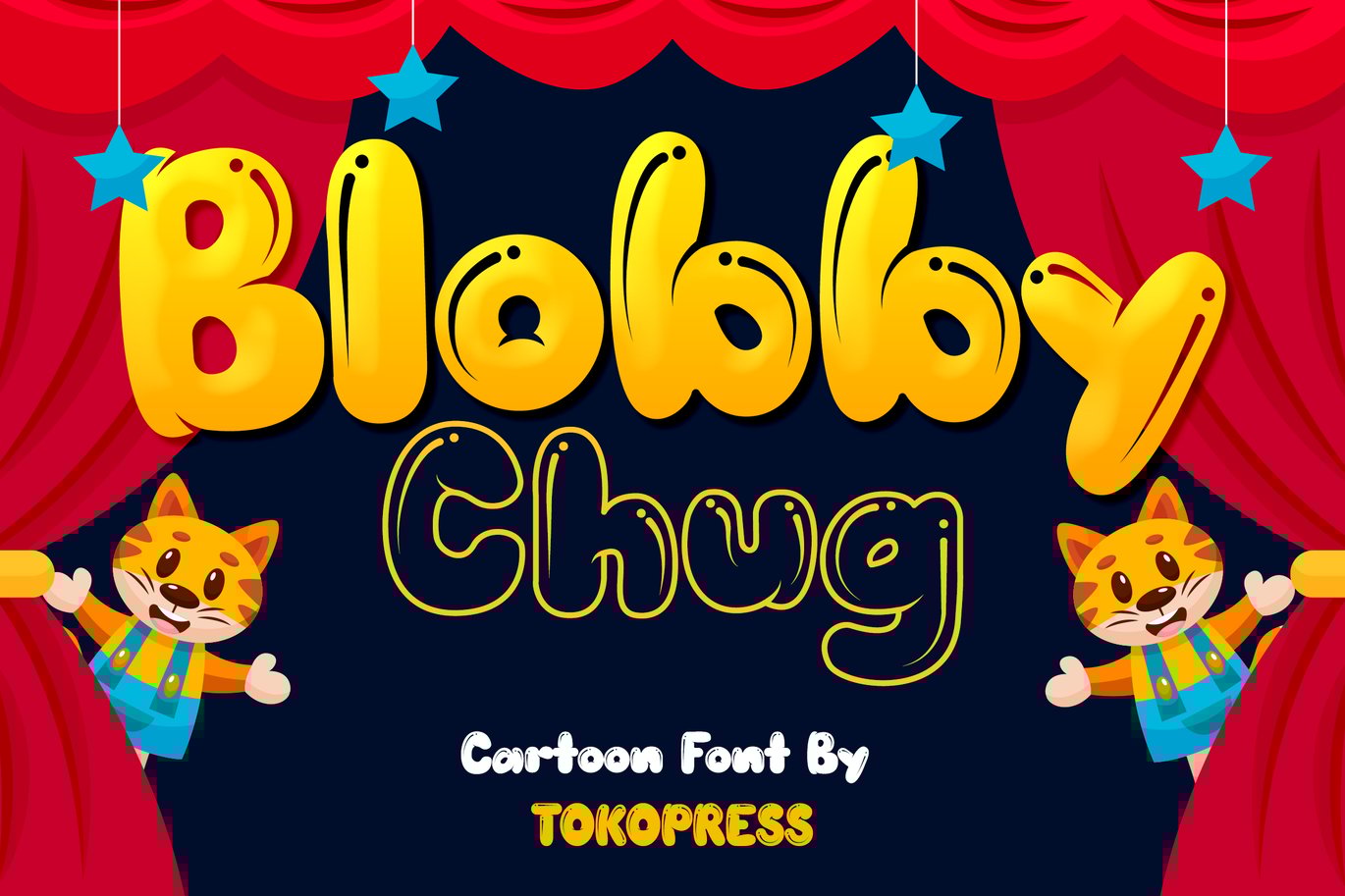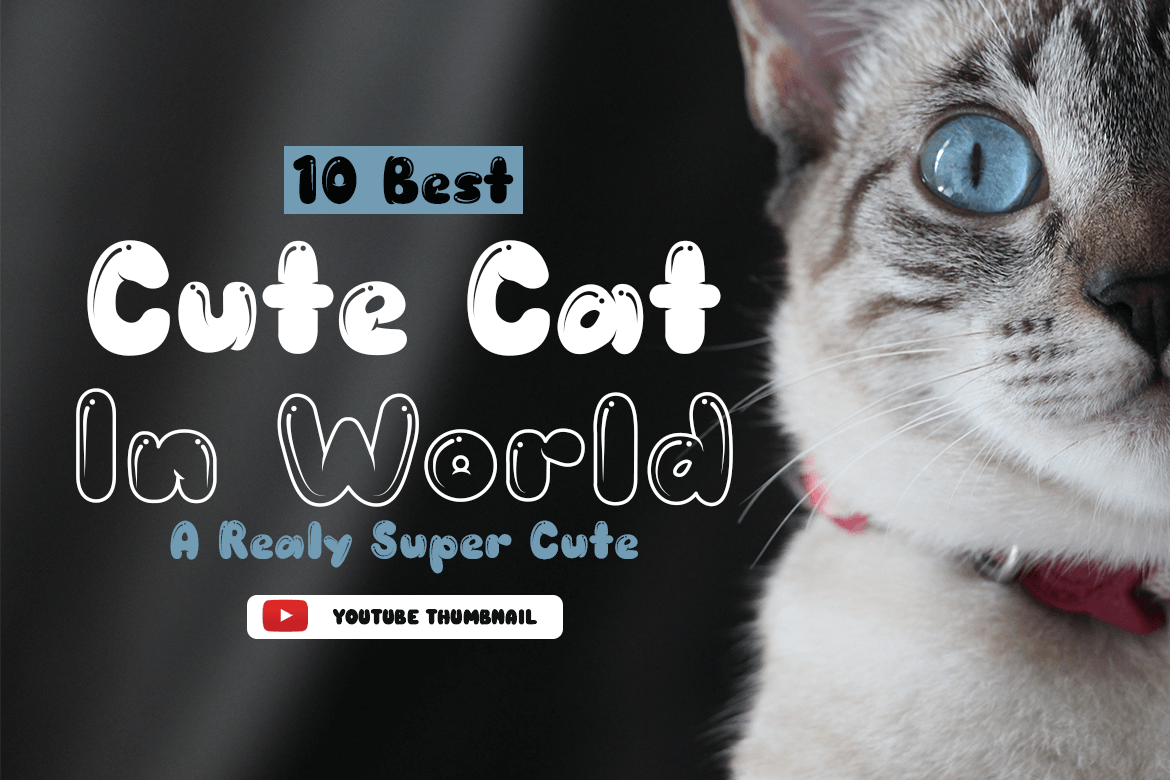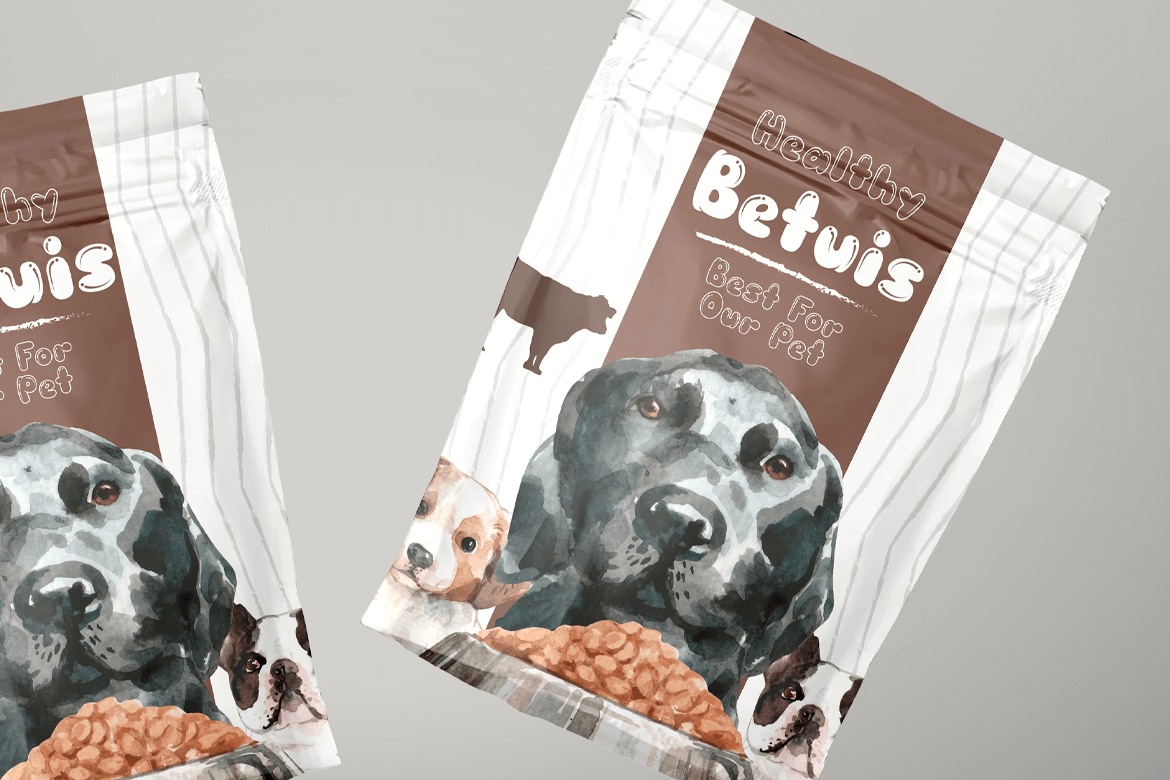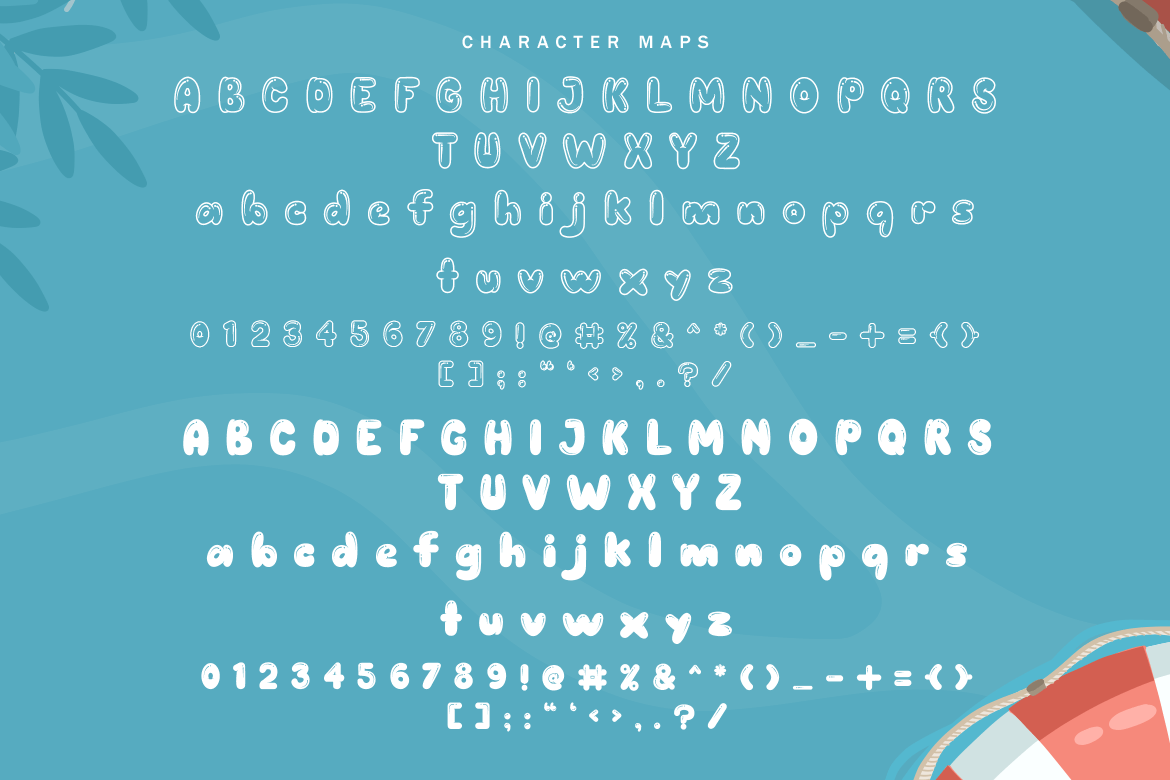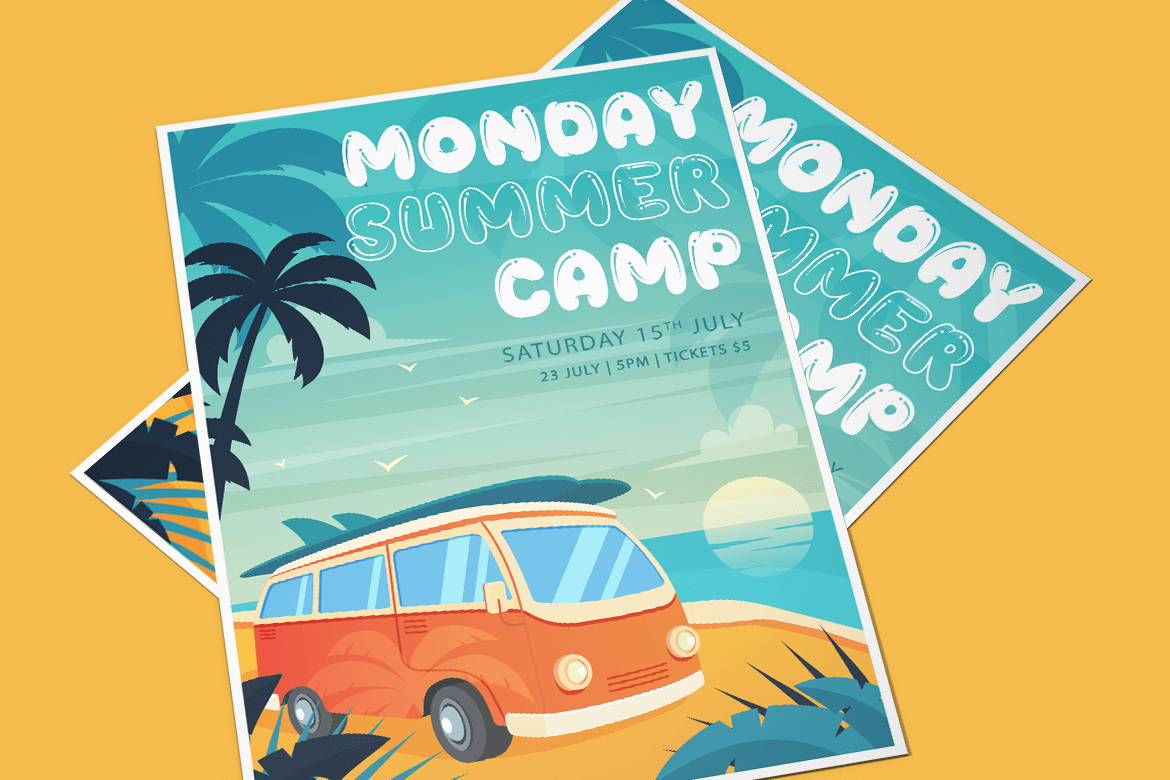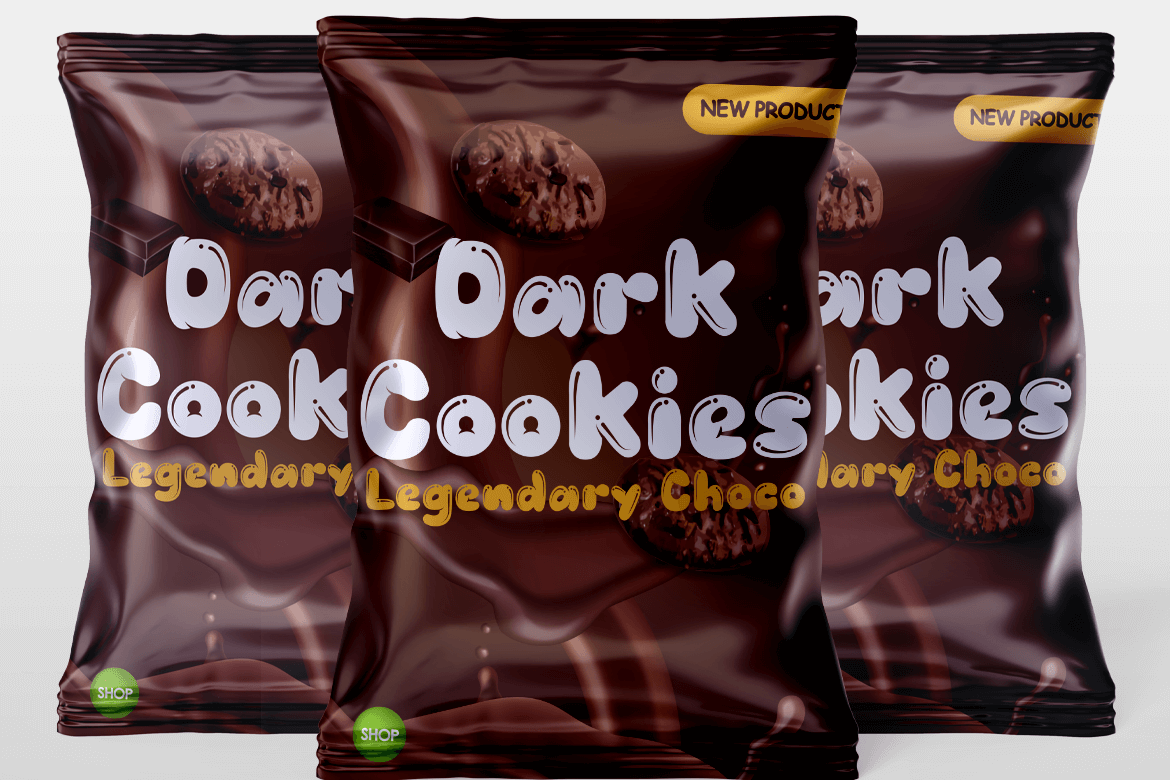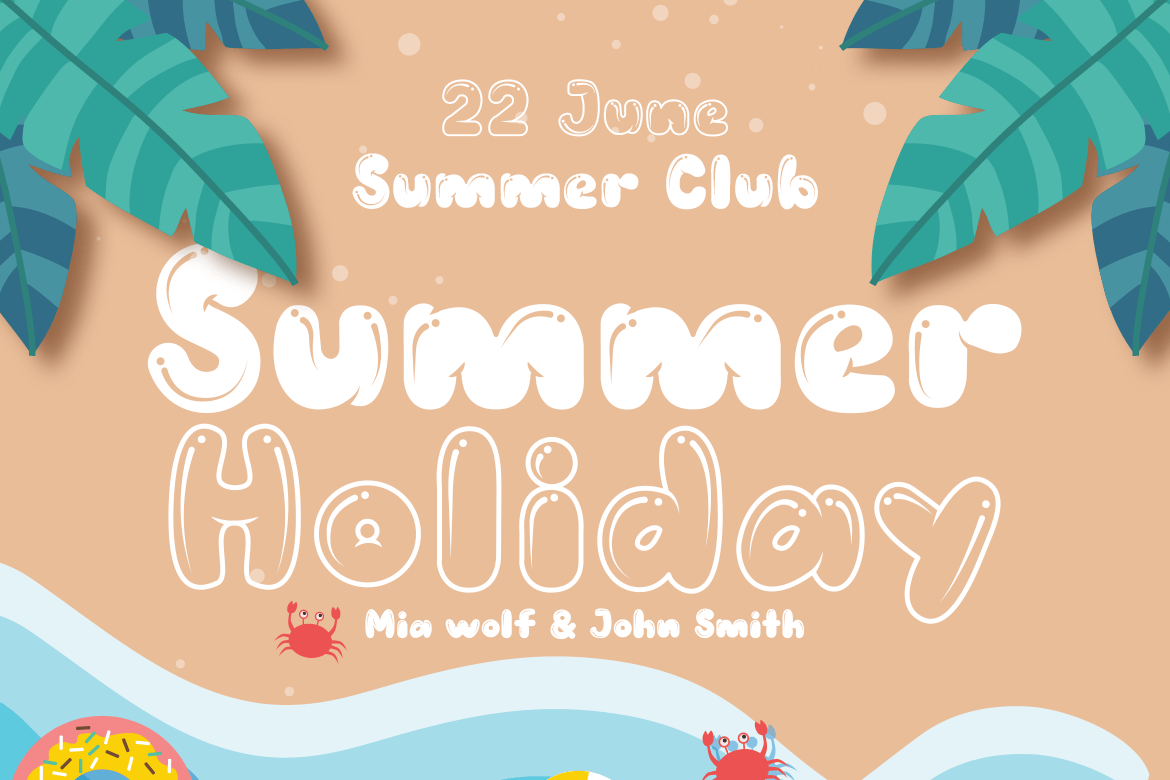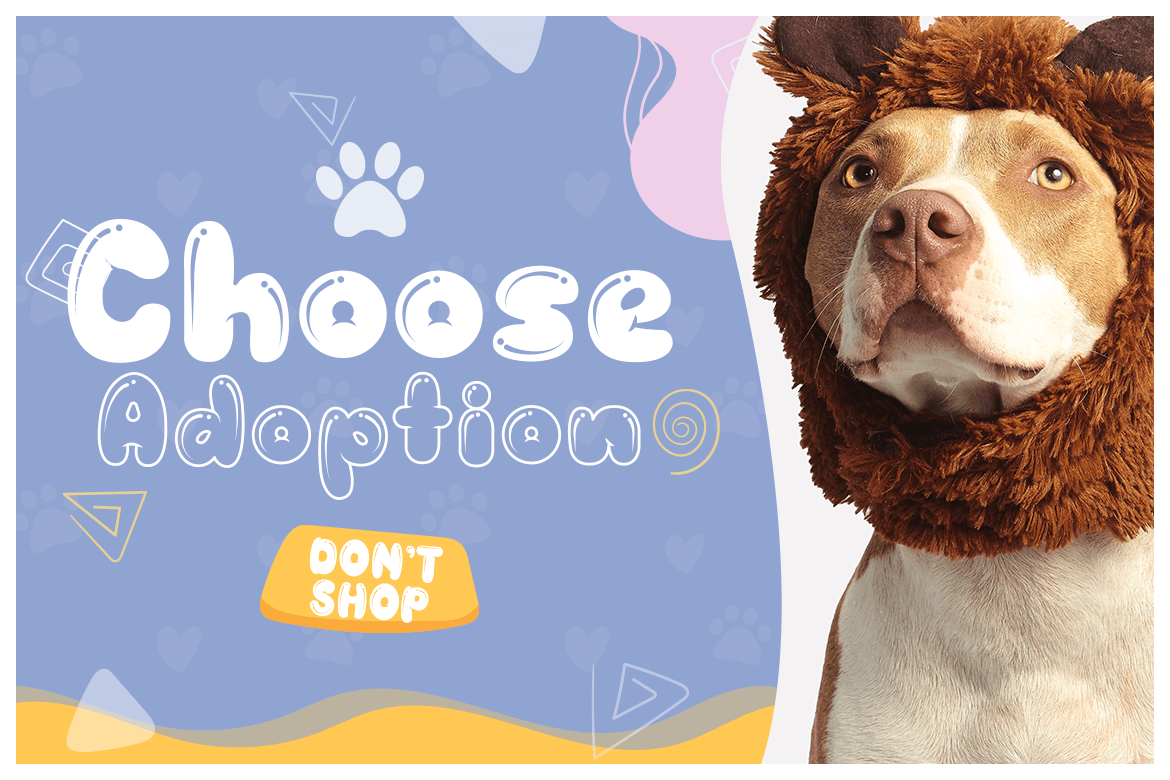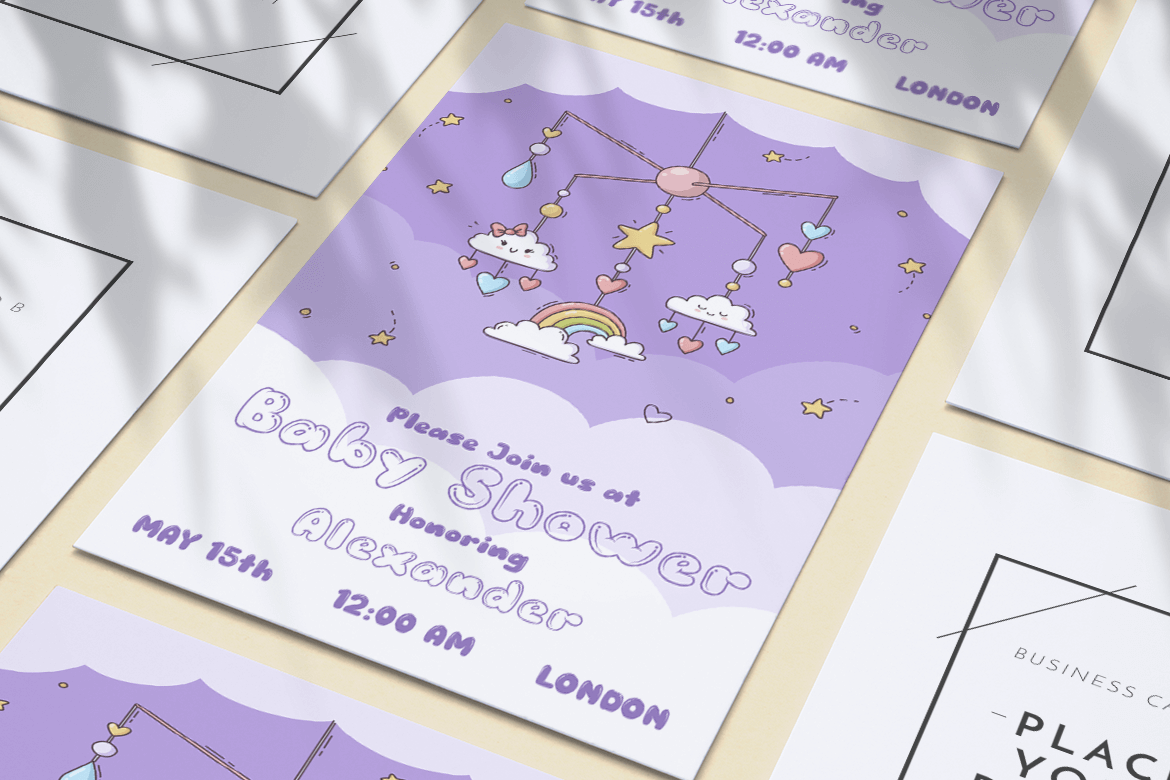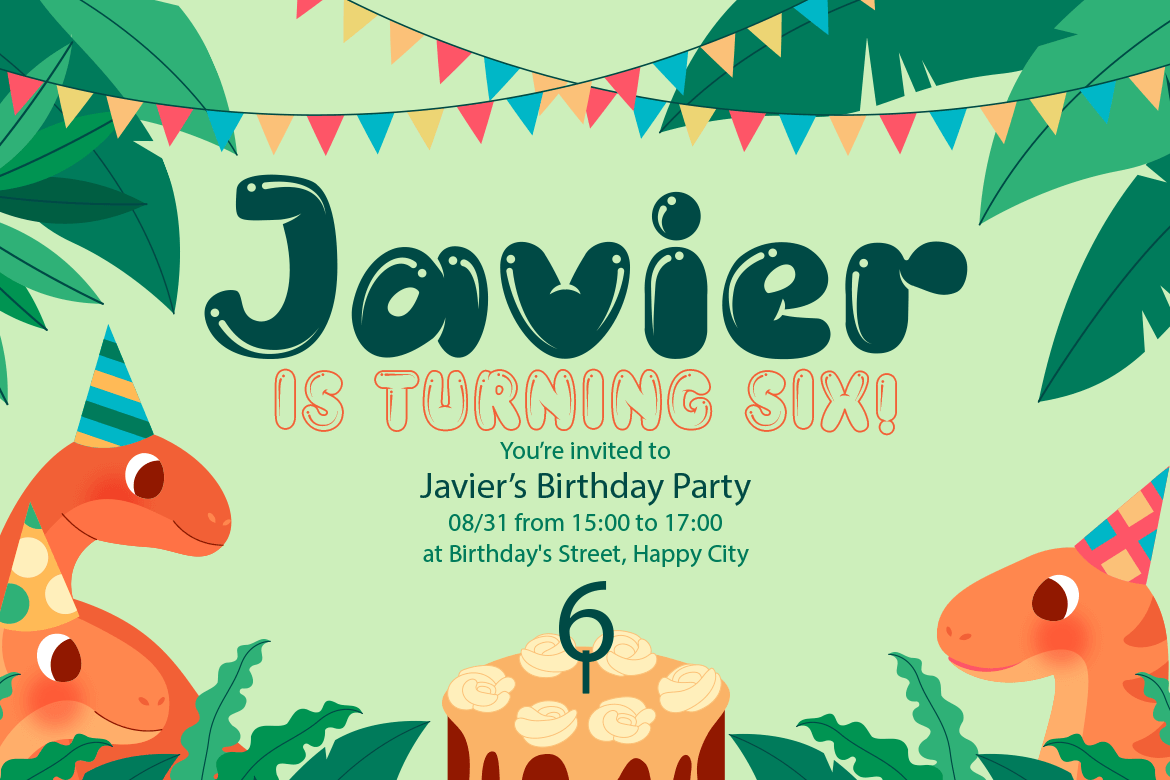
Blobby Chug – Kids blob font
The bold and balloon playful sans serif shape will bring a lot of joy in kids heart.
Suit perfectly for kids market, online games, stationary, t-shirt and school supplies font, poster, movie title, youtube covers, youtube thumbnails, social media page covers and so on…